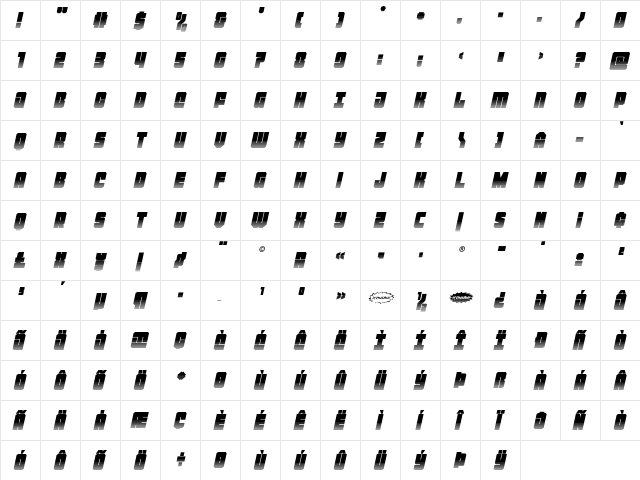
Homebase Twotone Italic Regular
Design Context for Homebase Twotone Italic Typeface
Homebase Twotone Italic takes a measured approach to typography — its balanced proportions and neutral character make it a reliable workhorse for both digital and print work. The dynamic lean of this cut emphasises speed and emphasis in any layout.